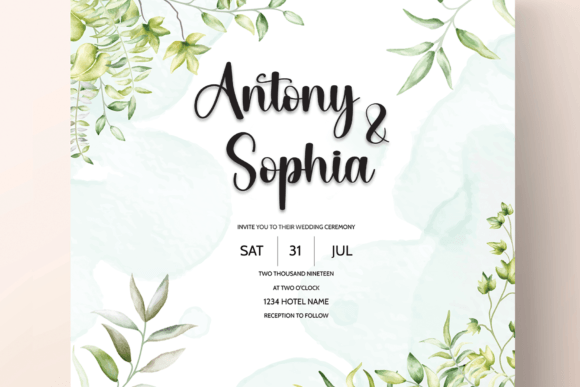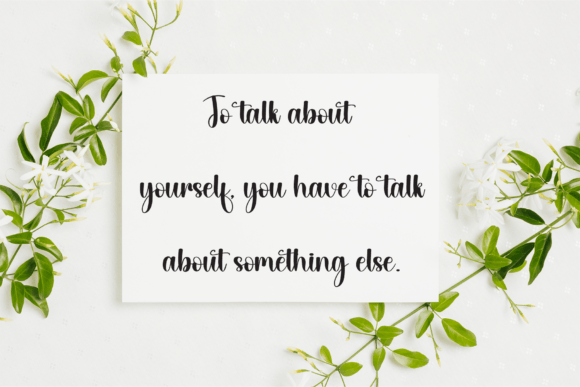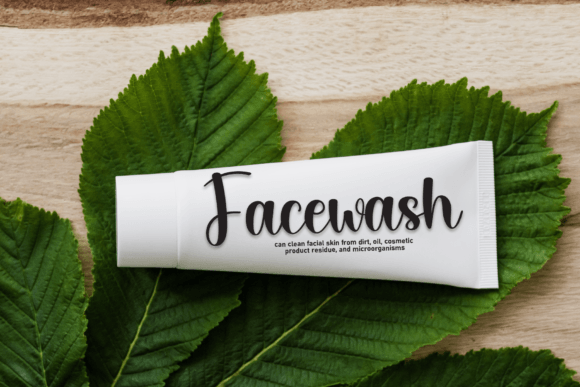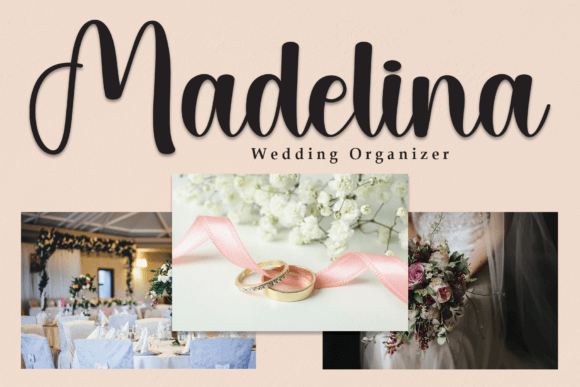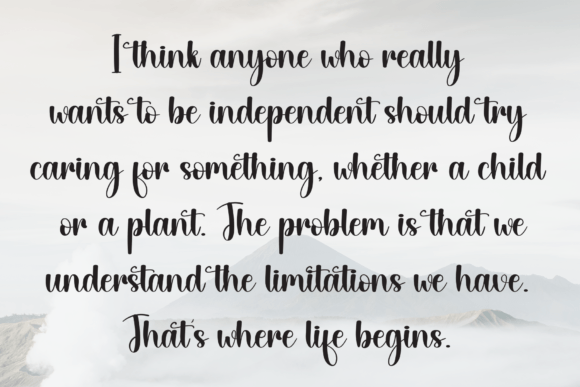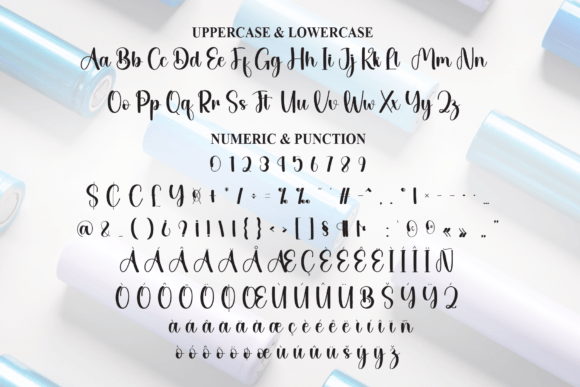
Batteries Font: Adding a Personal Touch to Your Projects
In the world of typography, fonts play a crucial role in conveying the tone and personality of a project. Whether you’re a designer, crafty DIY enthusiast, or simply someone who loves to add a personal touch to their work, finding the right font can make all the difference. That’s where Batteries Font comes in – a handwritten font with a casual, relaxed style that’s perfect for adding a friendly and approachable feel to your projects.
What is Batteries Font?
Batteries Font is a unique, handwritten typeface that exudes a sense of warmth and approachability. Its casual, relaxed style makes it ideal for use in a variety of projects, from creative DIY crafts to digital designs and everything in between. The font’s friendly and easy-to-read look ensures that your message is conveyed clearly, making it perfect for designers, crafters, and anyone looking to add a personal touch to their work.
Key Features of Batteries Font
• Handwritten style: Batteries Font boasts a beautiful, handwritten style that’s reminiscent of a casual note or letter.
• Easy to read: The font’s clear and legible design ensures that your text is easy to read, even at smaller sizes.
• Relaxed and casual: The font’s relaxed style makes it perfect for use in projects where a friendly, approachable tone is desired.
• Versatile: Batteries Font can be used in a variety of projects, from digital designs to print materials and DIY crafts.
Uses for Batteries Font
Batteries Font is a versatile typeface that can be used in a wide range of projects. Here are some ideas to get you started:
• DIY crafts: Add a personal touch to your DIY projects, such as handmade cards, gift tags, and scrapbooking pages.
• Digital designs: Use Batteries Font in your digital designs, such as social media graphics, blog posts, and website headers.
• Stationery and invitations: Create beautiful, handwritten-style stationery and invitations for special occasions.
• Signage and displays: Use Batteries Font for signage and display purposes, such as store signs, menus, and event displays.
Tips for Using Batteries Font
Here are some tips for getting the most out of Batteries Font:
• Pair with other fonts: Experiment with pairing Batteries Font with other fonts to create a unique and interesting look.
• Use in combination with images: Combine Batteries Font with images or graphics to add visual interest to your project.
• Experiment with colors: Try out different colors and textures to add depth and personality to your project.
• Keep it simple: Don’t be afraid to keep things simple – Batteries Font looks great on its own, too!
In conclusion, Batteries Font is a wonderful addition to any designer’s or crafter’s toolkit. Its friendly, easy-to-read look and casual, relaxed style make it perfect for adding a personal touch to a wide range of projects. Whether you’re working on a DIY craft, digital design, or simply looking for a unique font to add some personality to your work, Batteries Font is definitely worth checking out.